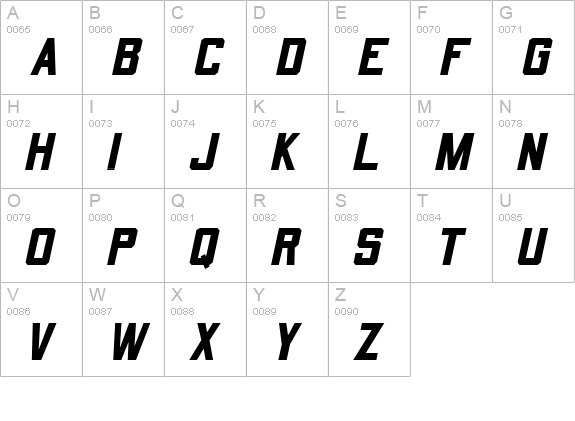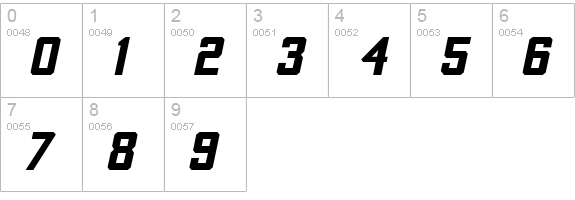
Quarterback Oblique is a distinctive, italic variant in the Quarterback typeface family \xE2\x80\x94 well suited to design and typography projects.
Quarterback Oblique font is the epitome of sleek sophistication and bold elegance. With its slanted and stylish letterforms, this typeface exudes a commanding presence that is sure to captivate any audience. The distinctive oblique angle adds a touch of dynamic movement, giving your designs a modern and edgy feel. This font is perfect for projects that demand attention and make a statement. Whether you're designing a logo, creating eye-catching headlines, or crafting a powerful poster, Quarterback Oblique will elevate your work to new heights. Its sharp and clean lines ensure excellent readability, even at smaller sizes, making it versatile for both print and digital media. One of the most remarkable aspects of Quarterback Oblique font is that it is free. Yes, you heard it right - you can freely download this exceptional font at FontsMarket.com. This means that you can add a touch of elegance and professionalism to your designs without breaking the bank. Whether you're a professional designer or a hobbyist, this font is an absolute must-have in your typography arsenal. With Quarterback Oblique font, you have the power to create visually stunning and impactful designs that leave a lasting impression. So why wait? Head over to FontsMarket.com and download this font today. Unleash your creativity and let Quarterback Oblique take your design game to the next level.